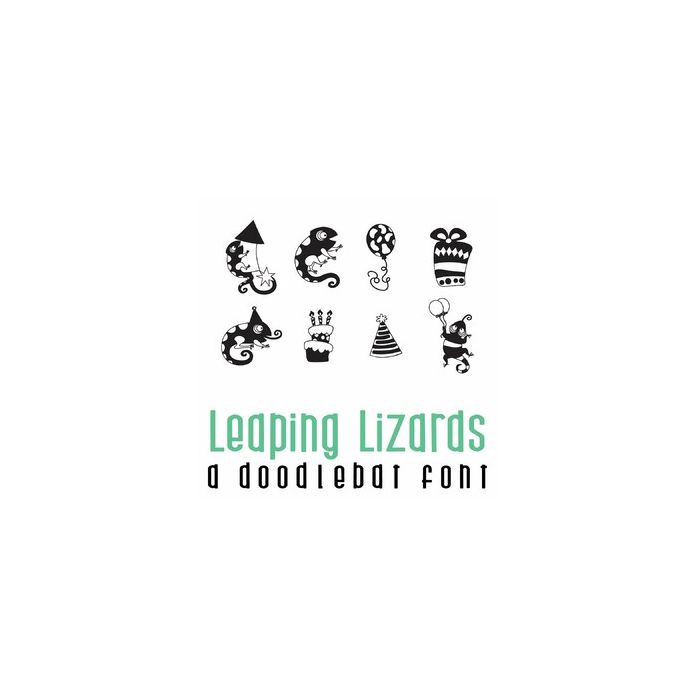
Leaping Lizards Doodlebat Font
This fun doodlebat font features 26 lizards ready to party. Perfect for cards, crafts, gifts, decor, scrap book pages, planner stickers and more!